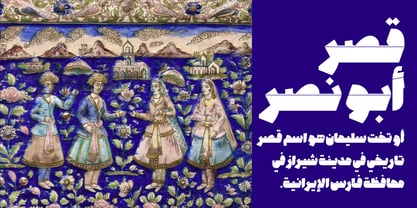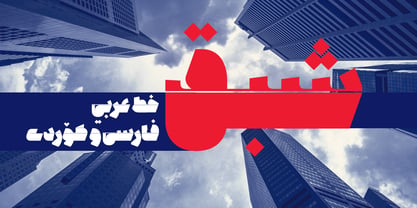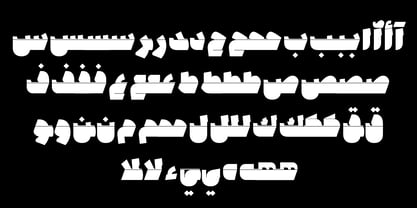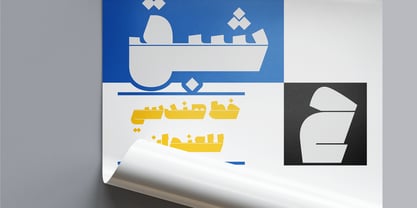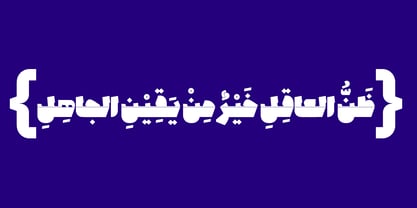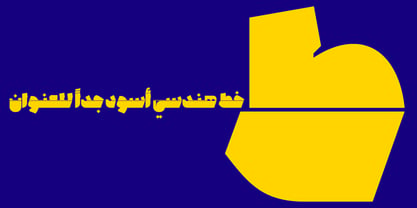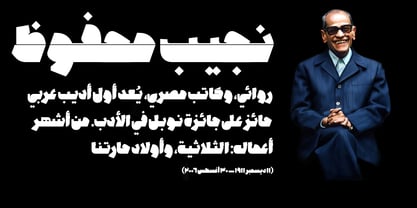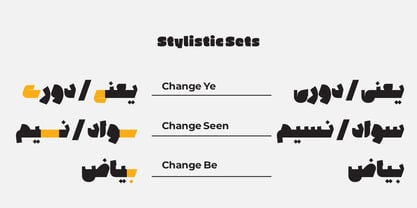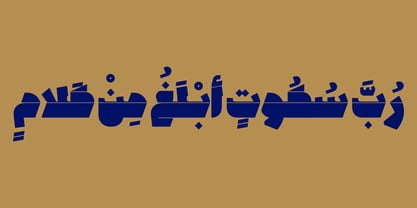
The Shabaq Font Family was designed by Reza Bohloul and published by Bohloul Arabic Type Design. Shabaq contains 3 styles and family package options. More about this family
This typeface is bold, courageous and amazing and I will expand this description a bit later.
Shabaq